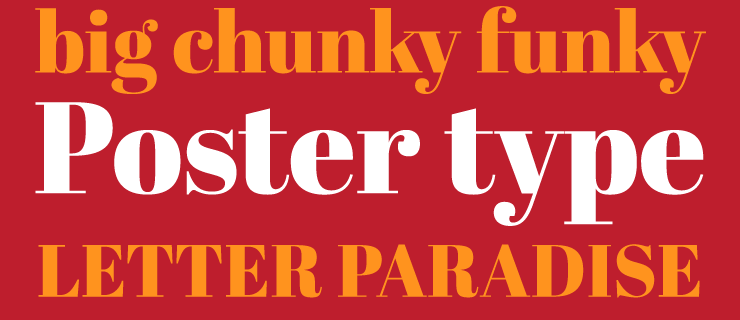
Abril Fatface
DateFebruary 2012 | The 20-style Abril family, conceived specifically for intensive editorial use, whether it is in newspapers, magazines or digital media, is a typeface of two worlds; titling weights are inspired by classic Didones and the text weights draw from 19th century slab serifs and scotch roman types. We are giving away Abril Fatface for free, both print and web (Typekit, Fontdeck and Google). After selecting Abril Fatface in our webshop, simply add this code f33836c7 in the checkout and download the font. | |